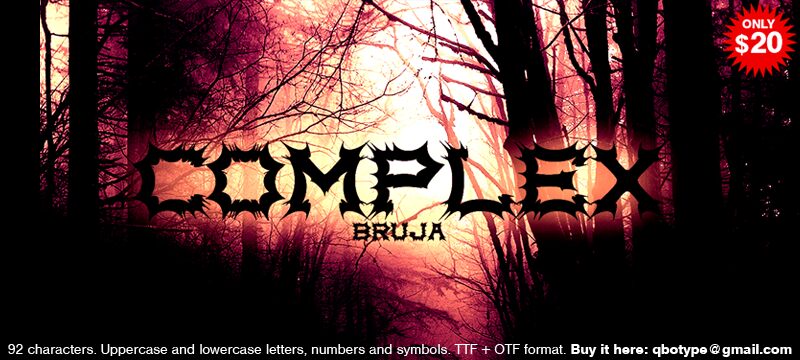
Complex Bruja by Carlos Matteoli is a free distorted display font with letters pulled into jagged, explosive silhouettes. Broad letter shapes are split by sharp internal cuts, and the uneven contours make each form resemble a burst, tear, or impact mark.
It can push a horror poster toward menace, yet the comic-book impact shapes also suit action game graphics and music merchandise. The lettering feels loud and confrontational. On event flyers, its spiked edges can merge with lightning, shattered glass, or explosion artwork instead of behaving like ordinary type.